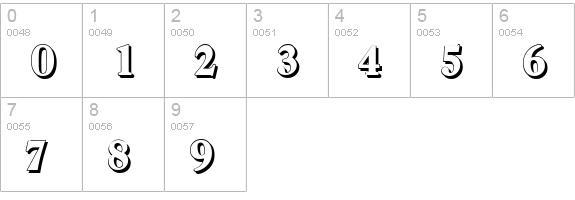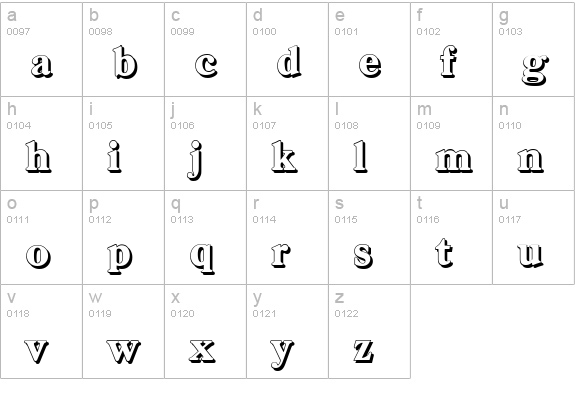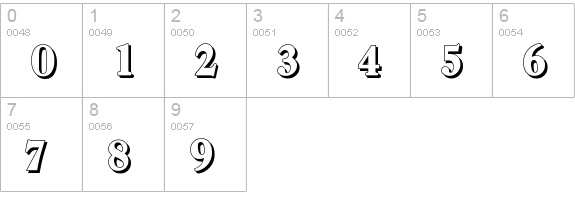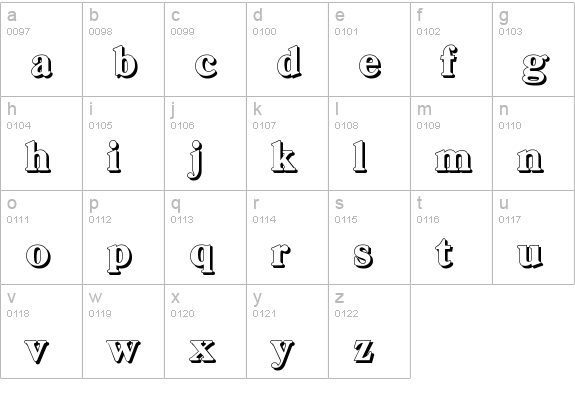
CasadShadow-Heavy-Regular Font Details
CasadShadow-Heavy-Regular is a heavy, high-impact variant in the CasadShadow typeface family \xE2\x80\x94 well suited to high-impact headlines, posters, and display advertising.
CasadShadow-Heavy-Regular is a modern and versatile font that exudes elegance and sophistication. With its bold and heavy weight, this typeface commands attention and adds a touch of drama to any design project. The sharp and well-defined shadows give it a unique and dynamic look, making it suitable for a wide range of creative applications. What sets CasadShadow-Heavy-Regular apart is that it is available for free download at FontsMarket.com. This means that you can easily access this high-quality font and use it in your personal and commercial projects without any cost. Whether you're designing a poster, logo, website, or any other graphic project, CasadShadow-Heavy-Regular will elevate your work and leave a lasting impression. Download it today and unleash your creativity with this stunning typeface.